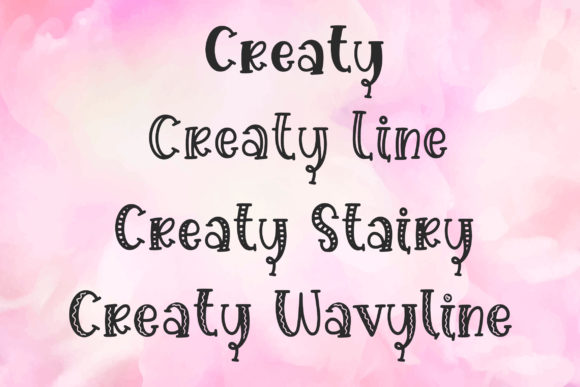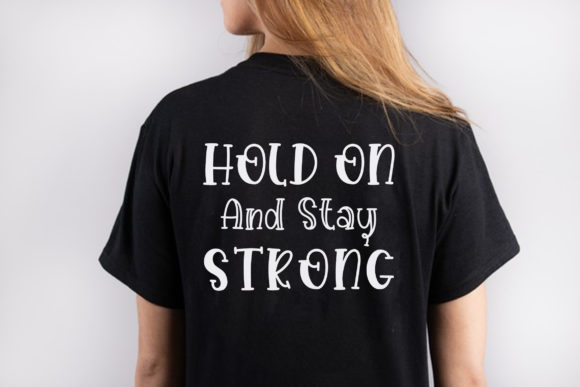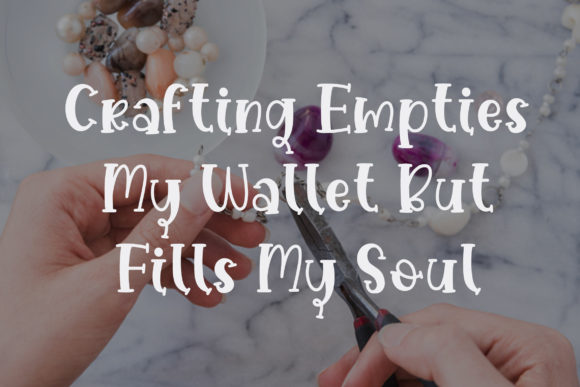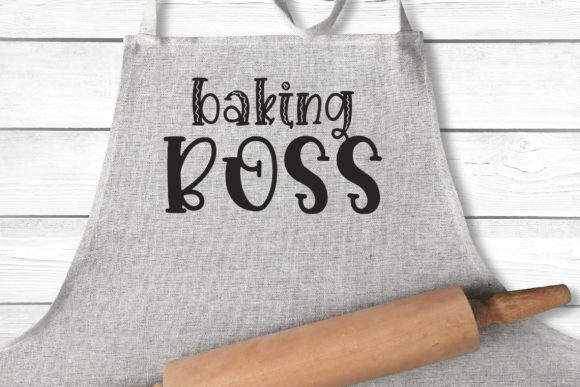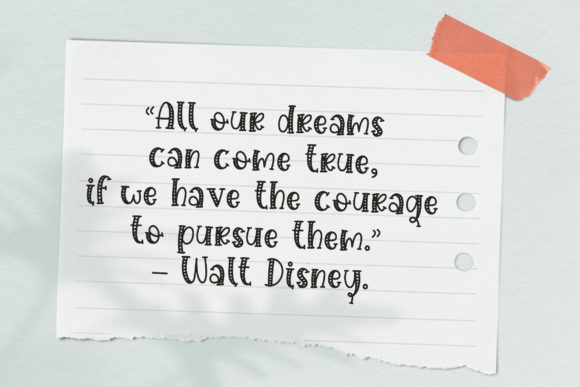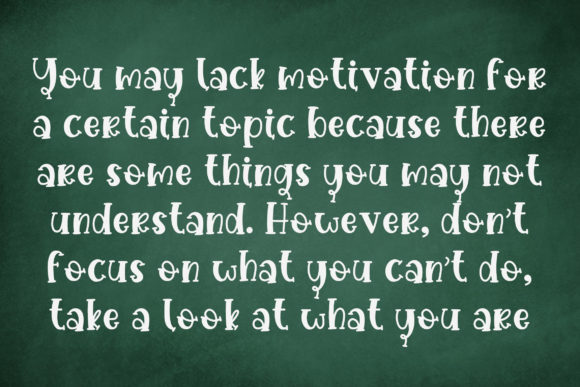
Creaty Family Font: The Cute and Charming Slab Serif Font for Your Creative Projects
Are you a designer or crafter looking for a font that can add a touch of sweetness and playfulness to your creations? Look no further than the Creaty Family Font! This adorable slab serif font is perfect for elevating any project, from product packaging to business cards, and more. In this article, we’ll dive into the features and benefits of the Creaty Family Font, and explore how it can take your designs to the next level.
What is Creaty Family Font?
Creaty Family Font is a cute and charming slab serif font that is sure to capture the hearts of designers and crafters alike. Its sweet and playful design makes it perfect for a wide range of creative projects, from branding and advertising to packaging and stationery. The font’s unique and quirky style is sure to add a touch of personality to any design, making it stand out from the crowd.
Key Features of Creaty Family Font
So, what makes Creaty Family Font so special? Here are just a few of its key features:
- Cute and charming design: The Creaty Family Font has a sweet and playful design that is sure to delight.
- Slab serif style: The font’s slab serif style gives it a sturdy and dependable feel, while also adding a touch of sophistication.
- Highly versatile: The Creaty Family Font can be used for a wide range of creative projects, from product packaging to business cards, and more.
- Easy to read: Despite its playful design, the Creaty Family Font is highly legible and easy to read, making it perfect for use in body text.
How to Use Creaty Family Font in Your Designs
So, how can you use the Creaty Family Font in your designs? Here are a few ideas to get you started:
- Product packaging: Add a touch of personality to your product packaging with the Creaty Family Font. Use it for labels, tags, and other packaging materials to make your products stand out.
- Business cards: Use the Creaty Family Font to create unique and memorable business cards that showcase your personality and brand.
- Branding and advertising: The Creaty Family Font is perfect for use in branding and advertising materials, such as logos, billboards, and social media graphics.
- Stationery and paper crafts: Add a touch of whimsy to your stationery and paper crafts with the Creaty Family Font. Use it for cards, invitations, and other paper projects.
Benefits of Using Creaty Family Font
So, why should you choose the Creaty Family Font for your designs? Here are just a few benefits:
- Adds personality to your designs: The Creaty Family Font is sure to add a touch of personality and whimsy to your designs, making them stand out from the crowd.
- Highly versatile: The font can be used for a wide range of creative projects, making it a great addition to any designer’s toolkit.
- Easy to read: Despite its playful design, the Creaty Family Font is highly legible and easy to read, making it perfect for use in body text.
- Unique and memorable: The Creaty Family Font is sure to make your designs more unique and memorable, helping you to build a strong brand identity.